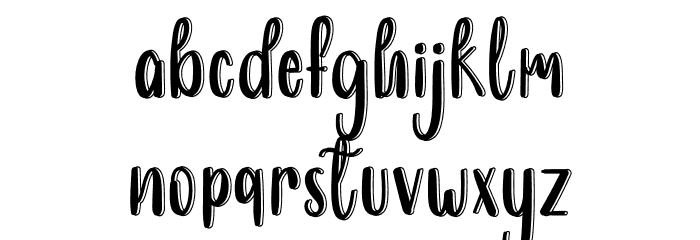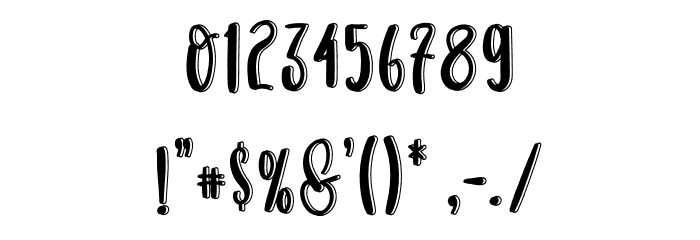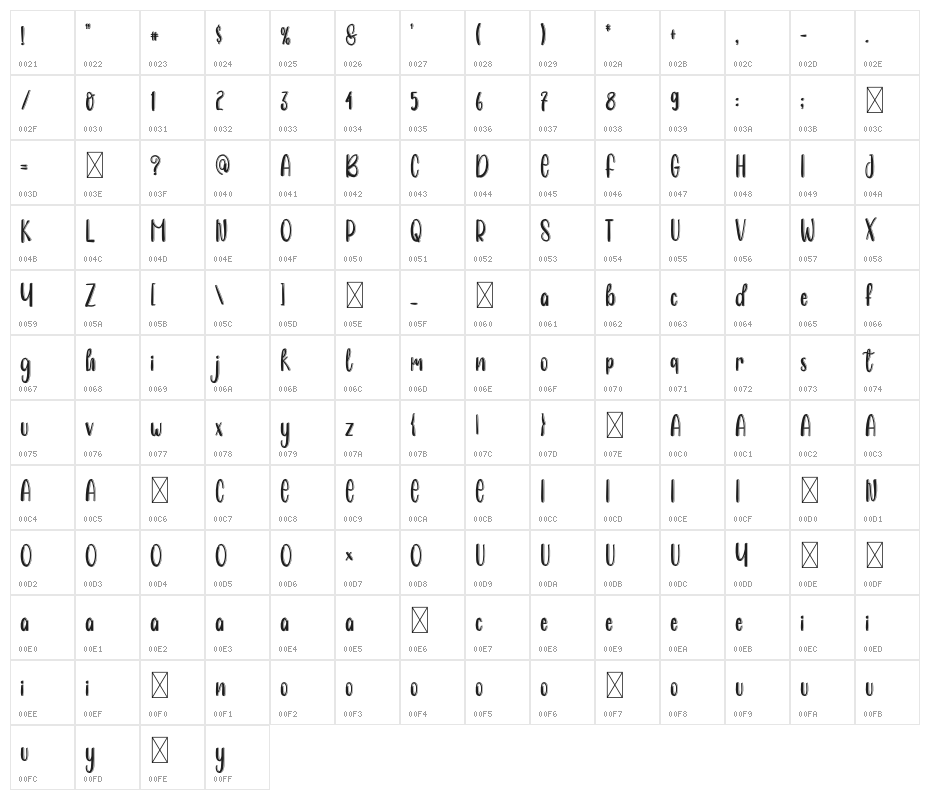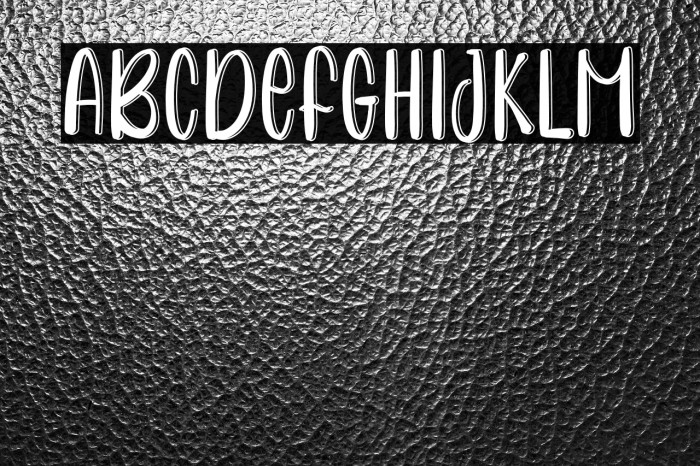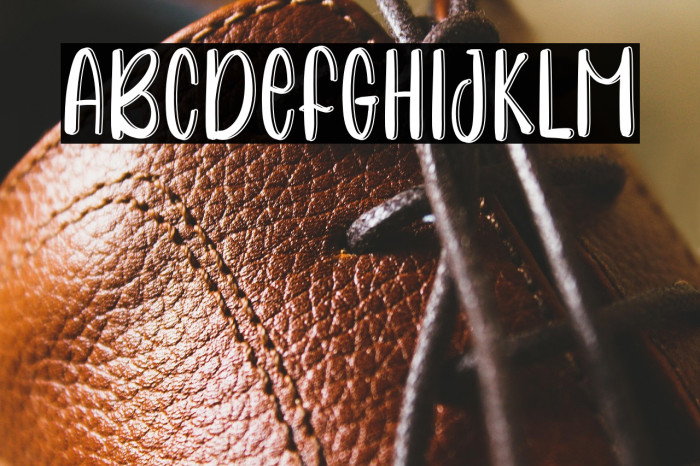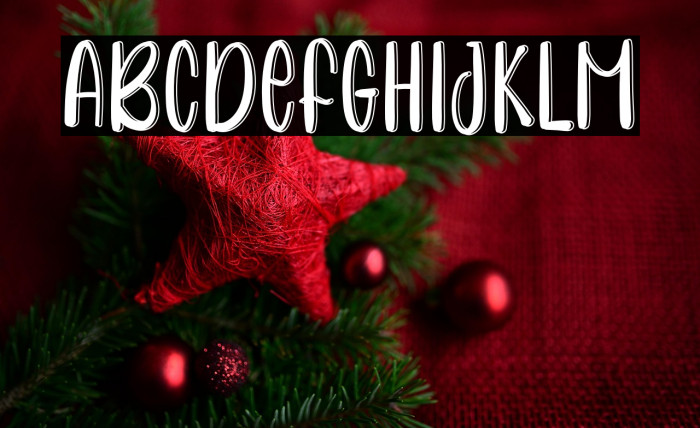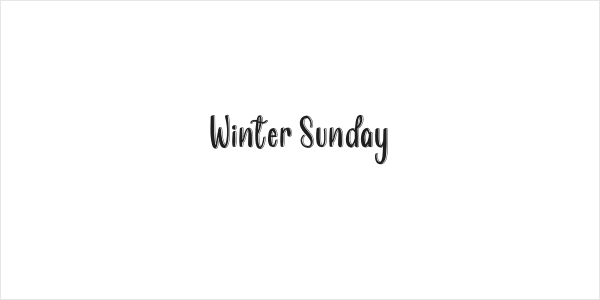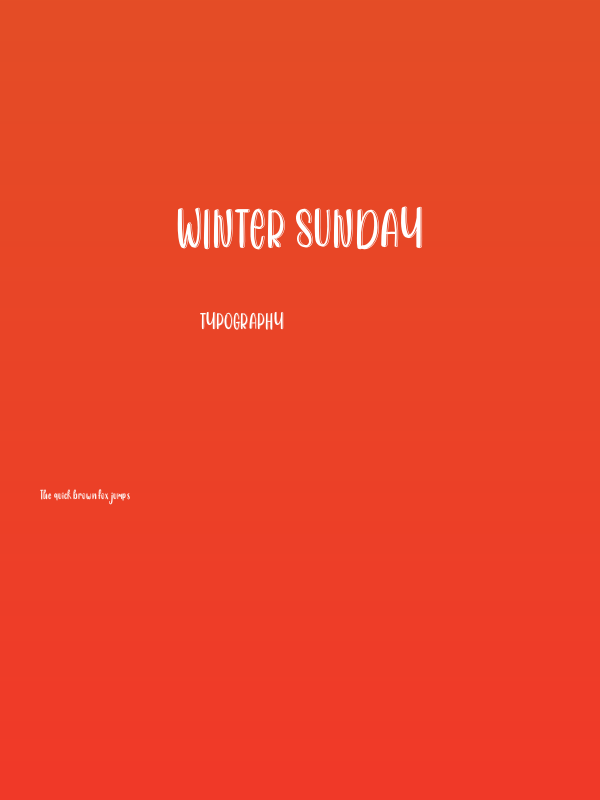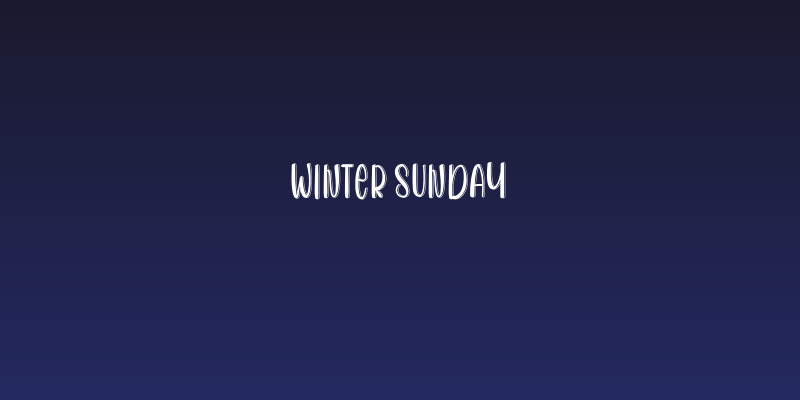
Winter Sunday Font
This font features a playful and whimsical style, characterized by its bold and rounded letterforms. The strokes are thick and consistent, giving it a strong presence on the page. Each character has a slightly hand-drawn feel, with subtle variations that add to its charm. The uppercase letters are tall and commanding, while the lowercase letters maintain a friendly and approachable look. Numbers and special characters are designed to match the overall aesthetic, ensuring a cohesive appearance across all text. The font's unique style makes it ideal for projects that require a touch of personality and creativity.
A playful, bold font with rounded, hand-drawn letterforms.
- Font: Winter Sunday
- Proposed Projects: Ideal for children's books, greeting cards, playful branding, and creative posters.
- Overall Style: Playful, Whimsical